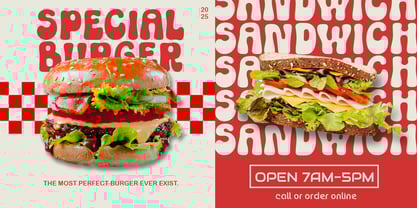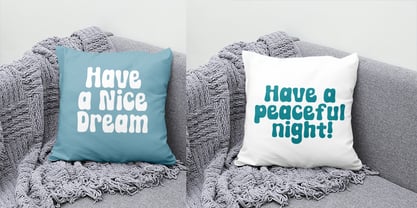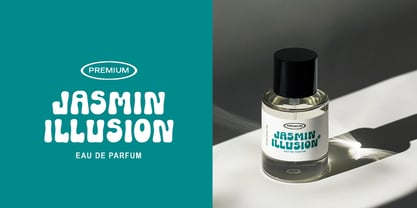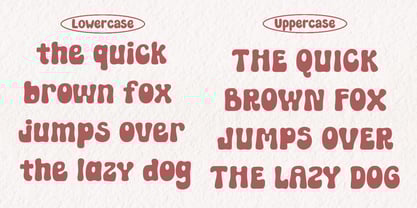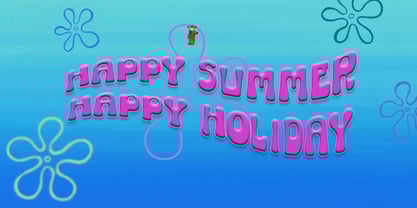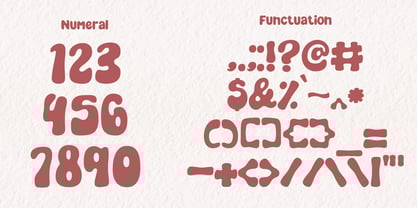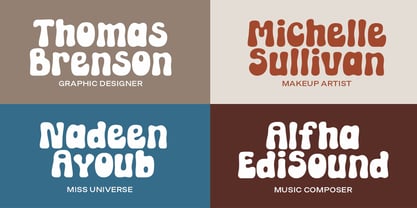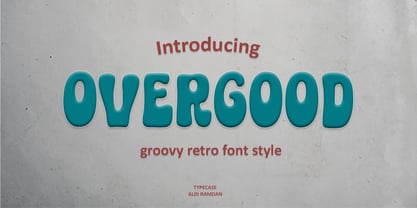
Over good
by TypeCase.std
The Over good Font Family was designed by ALDI RAMDAN and published by TypeCase.std. Over good contains 1 styles.
Overgood is a display font that exudes a captivating retro-vintage aesthetic, effortlessly evoking nostalgia. Perfect for adding a unique retro flair to your design projects, it elevates any creative concept with its distinctive charm. Designed by skilled professionals, this font is a preferred choice among creatives, enhancing a variety of applications. Its playful, vintage-inspired style is particularly suited for eye-catching headlines, branding, packaging, and promotional materials, ensuring your designs leave a lasting impression.
Designers: ALDI RAMDAN
Publisher: TypeCase.std
Foundry: TypeCase.std
Design Owner: TypeCase.std